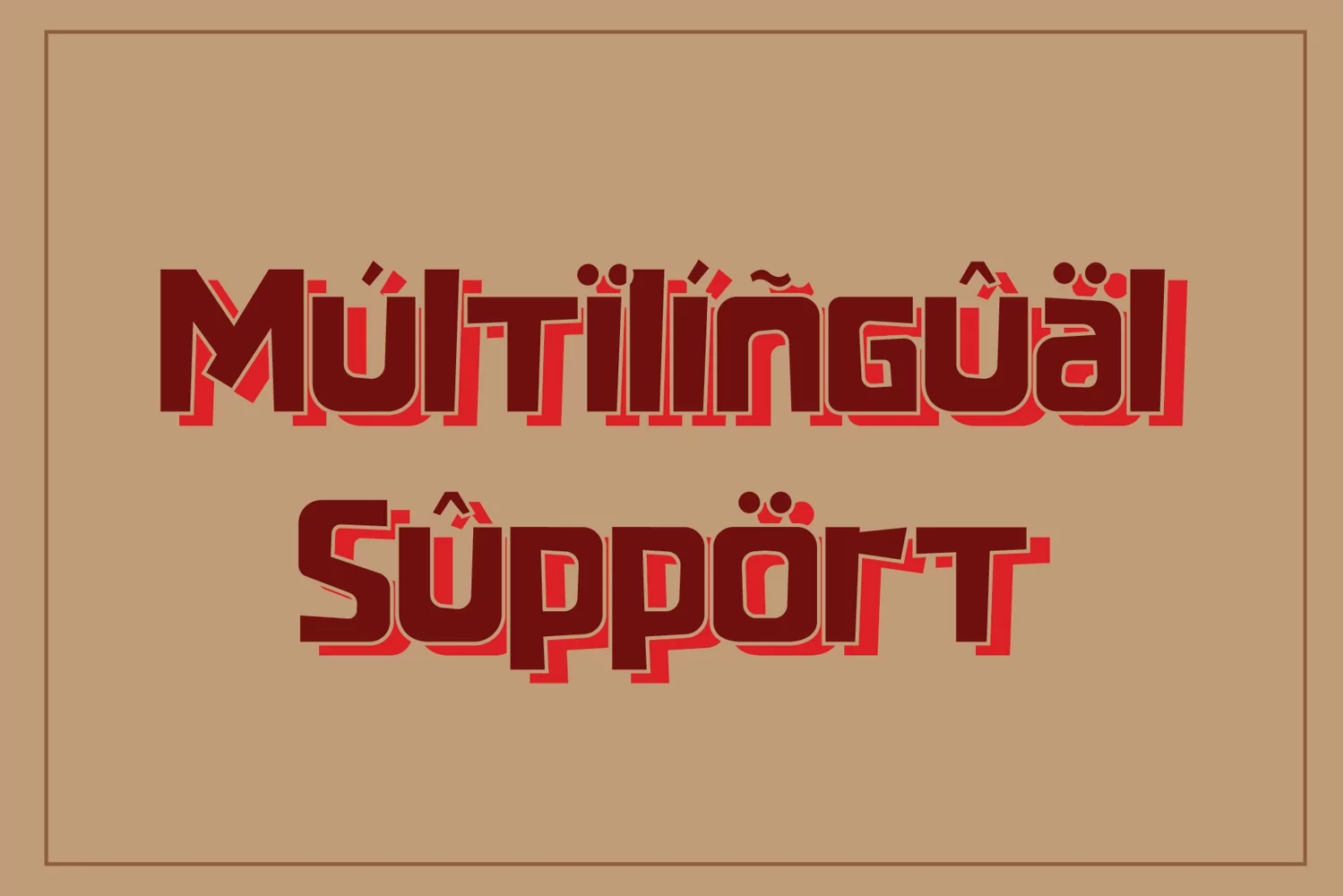
Radicalyps
This pair was inspired by some lettering design that i saw on some coffee shop, It was crafted by hand specially to add natural handmade feeling in its brand identity than i make it clean with pentool. It’s playful typography orginal hand drawing.
If you looking for playful decorative font for your title or even branding and logotype, this font is a great choice for that purpose
Opentype features
Radicalyps font has 172 character set included Radicalyps Font is very good looking in logotype, labels, decorative lettering, playful design, product packaging, invitation titled, advertising and others.